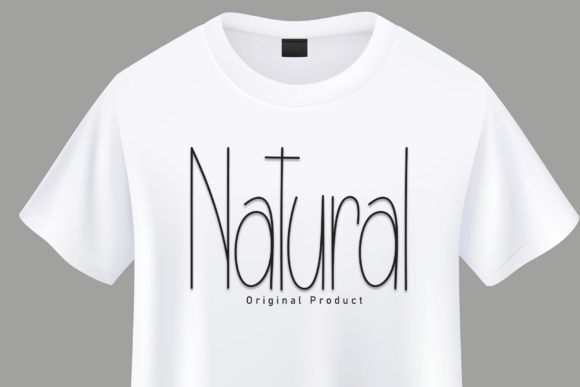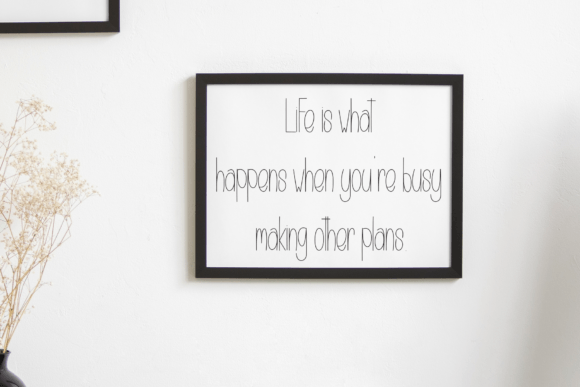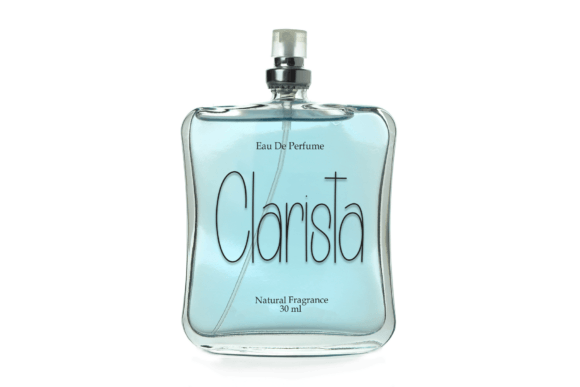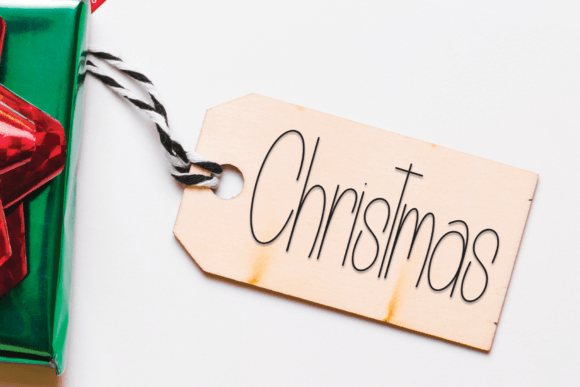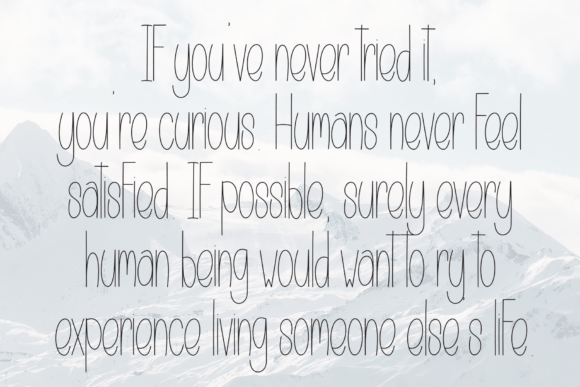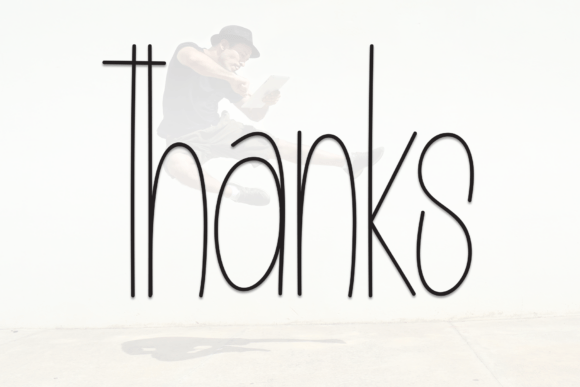
Introduction to Jumplater Font
Have you ever found yourself stuck in a creative rut, yearning for the perfect font to elevate your design project? That’s exactly what happened to us when we stumbled upon the enchanting Jumplater Font. As we began to explore its whimsical characters and playful charm, we knew we had discovered something truly special.
The Jumplater Font is more than just a design resource – it’s a key to unlocking the full potential of your creative project. With its high-quality, handwritten style, this font is perfect for adding a personal touch to wedding invitations, greeting cards, and even digital designs. Its transparent background makes it easy to integrate into any design, and the best part? It’s available for free download, making it a valuable asset for designers of all levels.
Key Features of Jumplater Font
- High-quality, professional design suitable for creative projects
- Unique, modern design with a transparent background, making it easy to integrate into any design
- Designed as a design resource for creative professionals, including graphic designers, digital artists, and more
- Perfect for use in logos, branding materials, and other creative projects where a modern, high-quality font is needed
Honest Review: Jumplater Font
I recently stumbled upon the Jumplater Font while searching for a unique design resource to enhance my creative project. This font caught my attention due to its quirky and playful style, making it perfect for a variety of high-quality designs.
Here are some things that work well with the Jumplater Font:
- ✨ Highly customizable: The font can be easily modified to fit your design needs, whether it’s for a logo, poster, or even a digital product.
- ✨ Transparent background: The font’s transparent background makes it easy to use on any background, giving you complete control over the design.
- ⚠️ Limited character set: The font only includes a limited set of characters, which might not be ideal for projects that require a full character set.
- ⚠️ Not ideal for body text: Due to its playful style, the font is not suitable for body text and is best used for headlines or titles.
Overall, I’m impressed with the Jumplater Font’s unique style and versatility. While it may have some limitations, it’s a great addition to any design library and can add a creative touch to your projects.
Tips for Getting the Most Out of Jumplater Font
For the best results, use Jumplater Font with a transparent background to create a seamless design. You can also experiment with different font sizes and colors to find the perfect combination for your design resource.
Jumplater Font is perfect for creating eye-catching titles, headings, and body text for your design projects. It’s also great for social media graphics, posters, and other visual content.